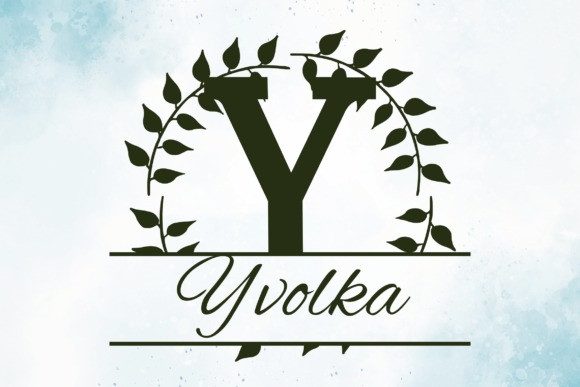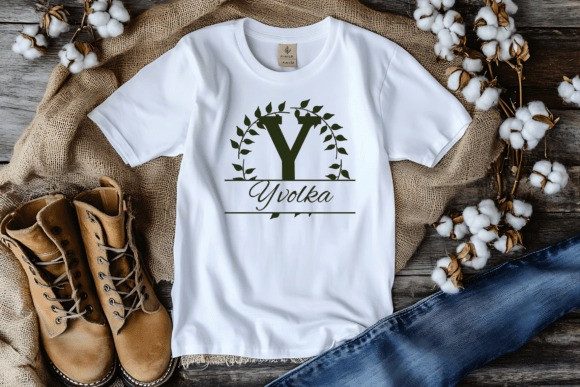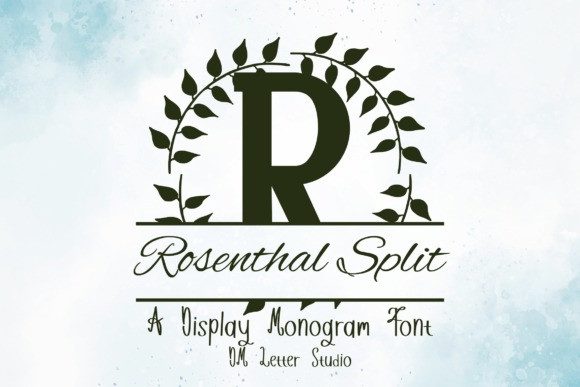
Rosenthal Split Monogram Font
Rosenthal Split Monogram Font is an elegant serif monogram font designed with a refined horizontal split—making it ideal for personalizing initials with names, dates, or custom phrases. With its timeless letterforms and graceful serif detailing, this font adds sophistication and classical flair to everything from wedding invitations and home décor to personalized gifts, branding, and packaging.
The built-in split design allows crafters and designers to easily insert names, company initials, or messages between the top and bottom halves of each letter. This makes Rosenthal Split Monogram a perfect choice for Cricut and Silhouette projects, laser-cut wood signs, engraved tumblers, and vinyl decals for weddings or events. Whether you’re a small business owner or a hobbyist, this font brings a polished, professional look with minimal effort.
Inspired by heritage serif typography, each uppercase character is drawn with balance, elegance, and clarity in mind. It works beautifully as a single letter monogram or in pairings. The clean baseline and evenly spaced split allow for neat text insertions, ensuring every design feels harmonious and upscale.
Whether you’re designing luxury labels, giftware, event signage, or wedding paper goods, Rosenthal Split Monogram adds elegance and personalization in one classic package.